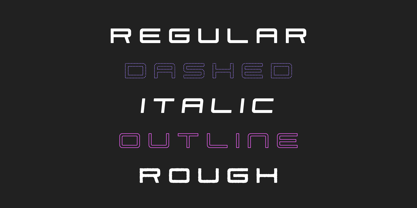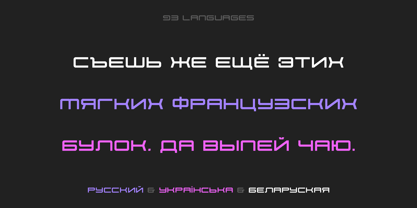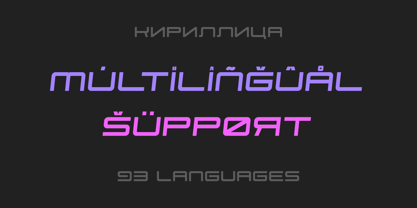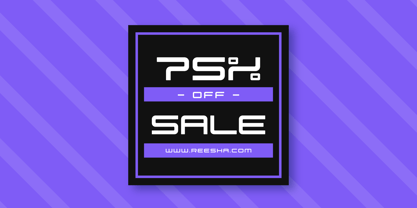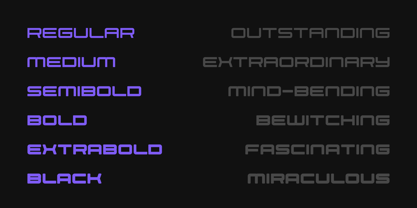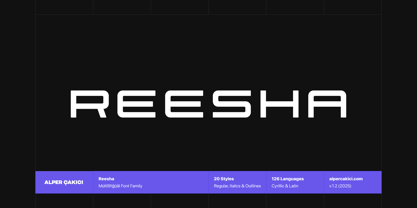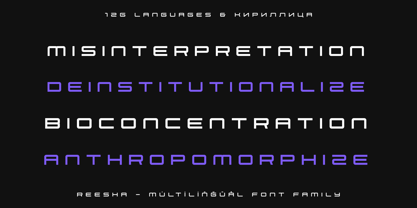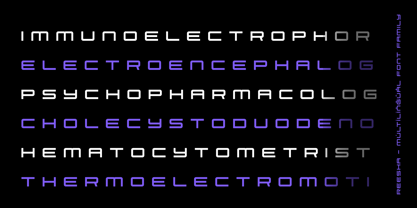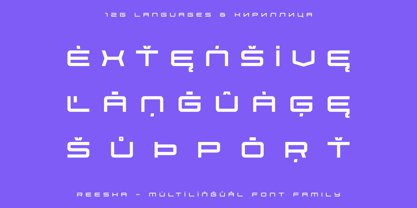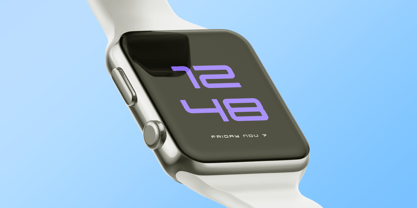
Reesha
La famille de polices Reesha a été conçue par Alper Çakıcı et publiée par AlperCakici. Reesha contient 24 styles et options de package familial. En savoir plus sur cette famille
Reesha – The Futuristic Geometric Typeface Step into the future of design with Reesha, a bold, visionary typeface shaped by geometric clarity and modern minimalism. Every curve, line, and proportion is engineered for sleek, forward-thinking aesthetics — ideal for sci-fi branding, digital interfaces, packaging, and any creative project that needs a cutting-edge visual voice. From space-age logos to next-gen UI design, Reesha delivers clarity, precision, and unmistakable style. ✨ Why Choose Reesha? Futuristic & Geometric: A perfect balance of innovation and readability. Extended Latin & Cyrillic: Communicate your vision globally. Optimized for Digital: Crafted for flawless performance in apps, games, web, and advertising. Creative Flexibility: Ideal for logos, posters, UI/UX, tech branding, and beyond. Professional Craftsmanship: Every detail fine-tuned for balance, legibility, and visual power.